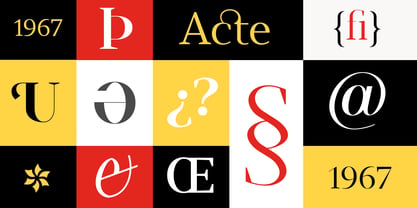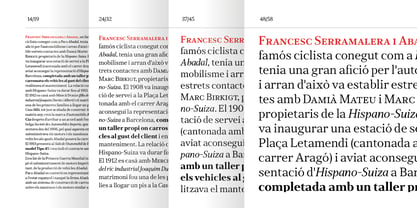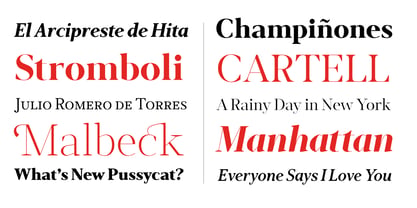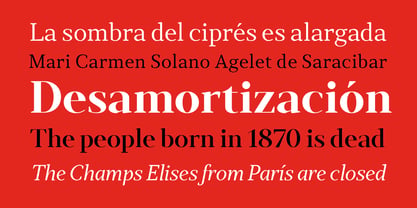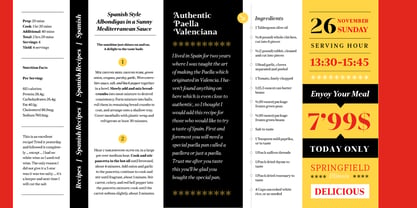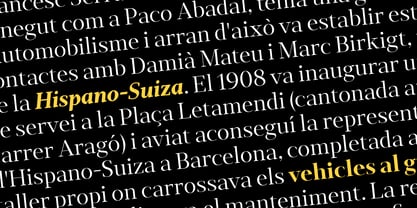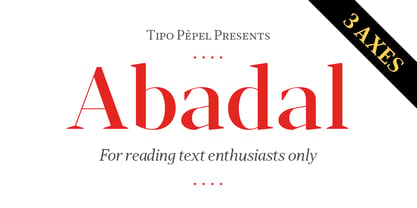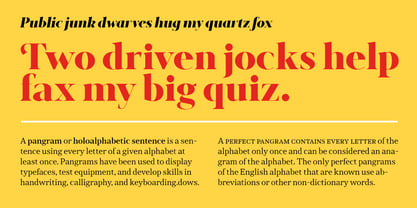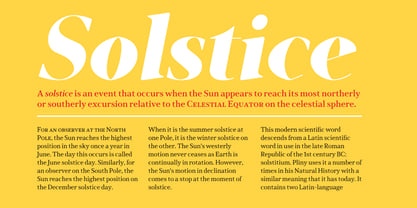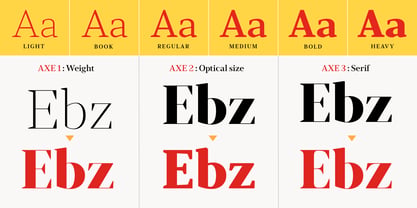
Abadal
La famille de polices Abadal a été conçue par Josep Patau et publiée par Tipo Pèpel. Abadal contient 50 styles et options de package familial. En savoir plus sur cette famille
Abadal – A Tribute to Catalan Typographic Heritage
Type design often appears to present limits that are impossible to surpass—until a path is opened. This is the case with Abadal, a tribute to the pioneering Catalan family of automobile builders, whose name also placed them first in alphabetical order throughout school. Their legacy now inspires a typeface destined to become a favorite in text design. For those familiar with my work, the family’s ancestry and origin will be immediately recognizable.
Abadal features three variable axes—weight, optical size, and finial—allowing precise control over typographic color and structure. Recreating the exact weight or achieving the perfect balance in your text block becomes effortless. Special attention has been given to the ability to accentuate or soften the top contrast, offering flexibility for subtle refinement or pronounced emphasis, catering to the most discerning typographic connoisseurs.
Adjusting the optical size ensures consistent text density across different point sizes—a refinement once considered lost with the end of the lead type era, now revived for the pleasure of the finest typographic enthusiasts.
As with all our typefaces, Abadal comes equipped with a comprehensive range of OpenType features, including small caps, initials, numerals, fractions, denominators, and much more.
Discover Abadal: your indispensable companion in text design and layout.